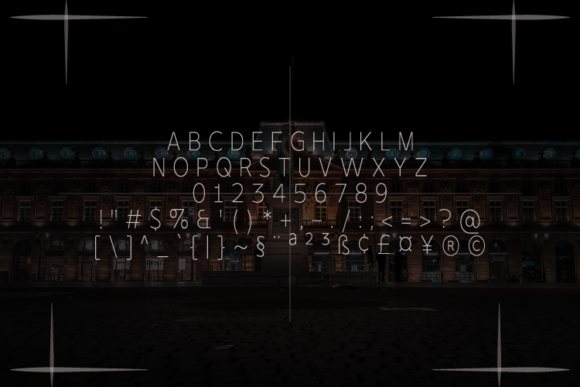
Arkelogue Thin Font: A Designer’s Dream
Arkelogue is a simple and casual sans serif font with an undeniably clean feel. Its neat and beautiful arrangement of letters makes it perfect for both formal and non-formal designs. What I love about Arkelogue is its flexibility – it comes with 10 different weights ranging from thin to extra black versions, allowing you to choose the weight that suits your design/project best.
- ✅ Clean and modern design
- ✨ Versatile – works well in both formal and non-formal designs
- 💯 10 different weights to choose from
- 🎉 Easy to read, even at small sizes
While Arkelogue is an excellent font, there are a few things to keep in mind: 🤔
- ⚠️ Limited character set – no extensive language support
- ⚠️ Not ideal for body text – better suited for headings and titles
The Designer Behind Arkelogue
Arkelogue was designed with the goal of creating a clean and modern sans serif font that would be versatile enough for various design projects. The designer aimed to create a font that would be both elegant and approachable, making it perfect for designers, crafters, and creative hobbyists alike.
| Font Name | Arkelogue Thin Font |
| Author | Huntype |
Q: What is the best use for Arkelogue Thin Font?
A: Arkelogue Thin Font is best suited for headings, titles, and short text passages where a clean and modern look is desired.
Q: Can I use Arkelogue for body text?
A: While Arkelogue is legible, it’s not ideal for extensive body text. It’s better suited for shorter text passages or headings.
Q: Is Arkelogue suitable for branding and logos?
A: Yes, Arkelogue’s clean and modern design makes it an excellent choice for branding and logos.